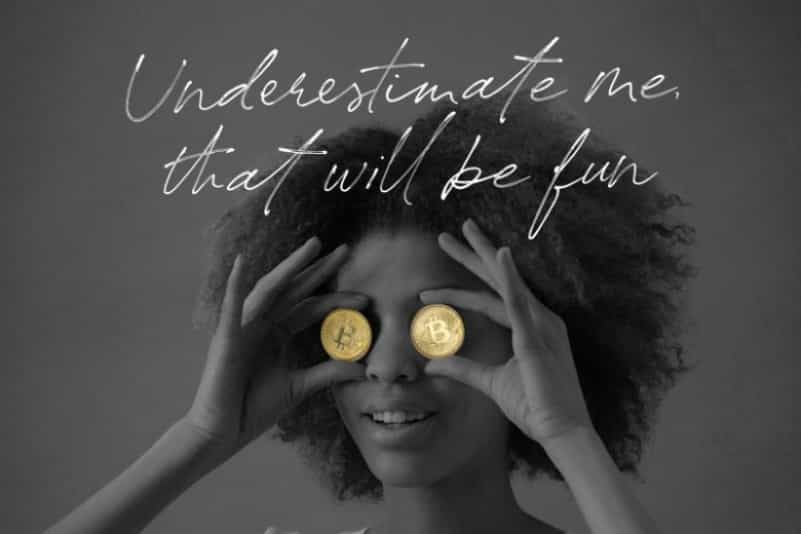
Discover The Redstock Handwritten Font, part of the Brush Handwritten collection—a versatile and unique font perfect for adding a personal touch to your projects. Download it for free and enjoy crafting designs with style, from invitations to social media posts. This font is available exclusively for personal use, giving you the freedom to create without limits. Unlock your creativity with The Redstock Handwritten Font today!
Introducing The Redstock FontImagine the fonts as cosmetic. Yes, it was out of that idea that we assembled the fonts and design arsenal known as The Red Stock. An authentic handwritten script font with “almost-empty” ballpoint effect. Perfect fitting for your logo, branding, a fancy signature on every project, anything. Feel the versatility in each stroke of it like a daily makeup which makes all eyes look to you.